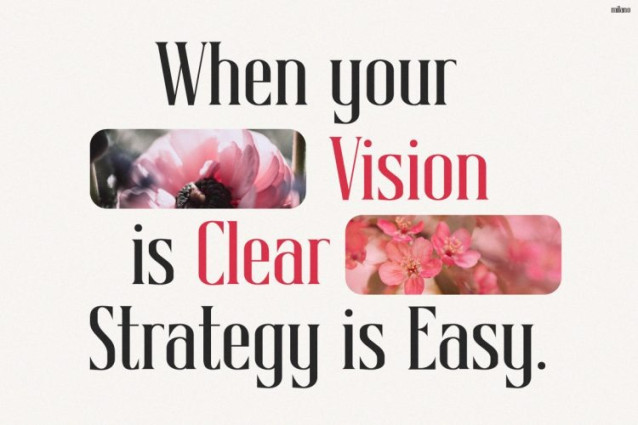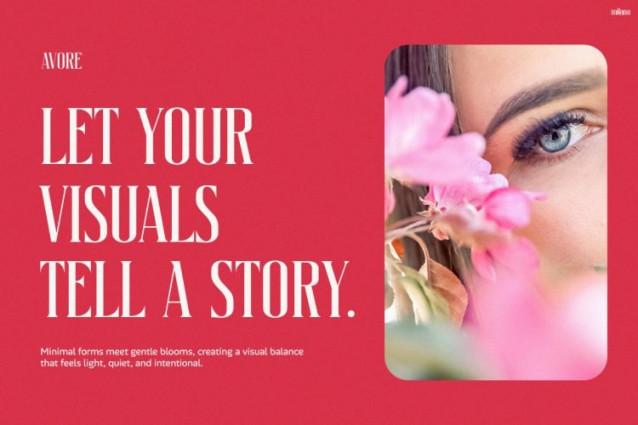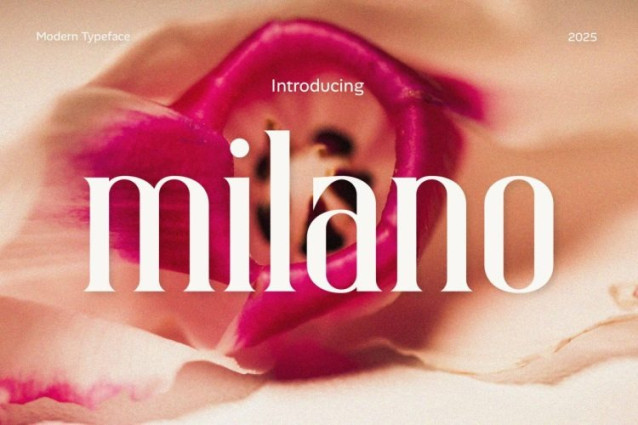
Milano Serif Font
Milano Serif Font delivers refined elegance while also enhancing clarity in modern visual communication. From the first glance, this font creates a strong emotional connection. Moreover, its inspiration from high-fashion editorials, luxury branding, and contemporary lifestyle design gives every composition a premium and confident presence. Rather than relying on excessive decoration, MILANO uses graceful serif curves and balanced contrast. As a result, designs appear expressive, polished, and timeless.
Furthermore, MILANO stands out because it combines visual beauty with practical performance. While many decorative fonts sacrifice readability, this typeface maintains clarity across both digital and print formats. Consequently, headlines stay crisp, quotes feel poetic, and short messages carry weight without distraction. Additionally, its carefully shaped letterforms guide the reader’s eye naturally, which strengthens engagement and improves visual flow.
Instagram Font MILANO is a sophisticated serif typeface designed for modern storytelling and brand-driven visuals. In particular, its elegant proportions and high-contrast strokes make it ideal for Instagram posts, story covers, reels, and promotional graphics. Moreover, designers can apply this font confidently to posters, invitations, packaging, editorials, and product campaigns. Meanwhile, its clean structure allows smooth pairing with minimalist sans-serif fonts. Therefore, creators can build clear hierarchy, strong layouts, and memorable compositions with ease.
In addition, MILANO adapts well to various moods. Whether used for romantic visuals, luxury branding, or bold marketing statements, the font maintains consistency and authority. As a result, brands achieve a cohesive and recognizable identity across platforms.